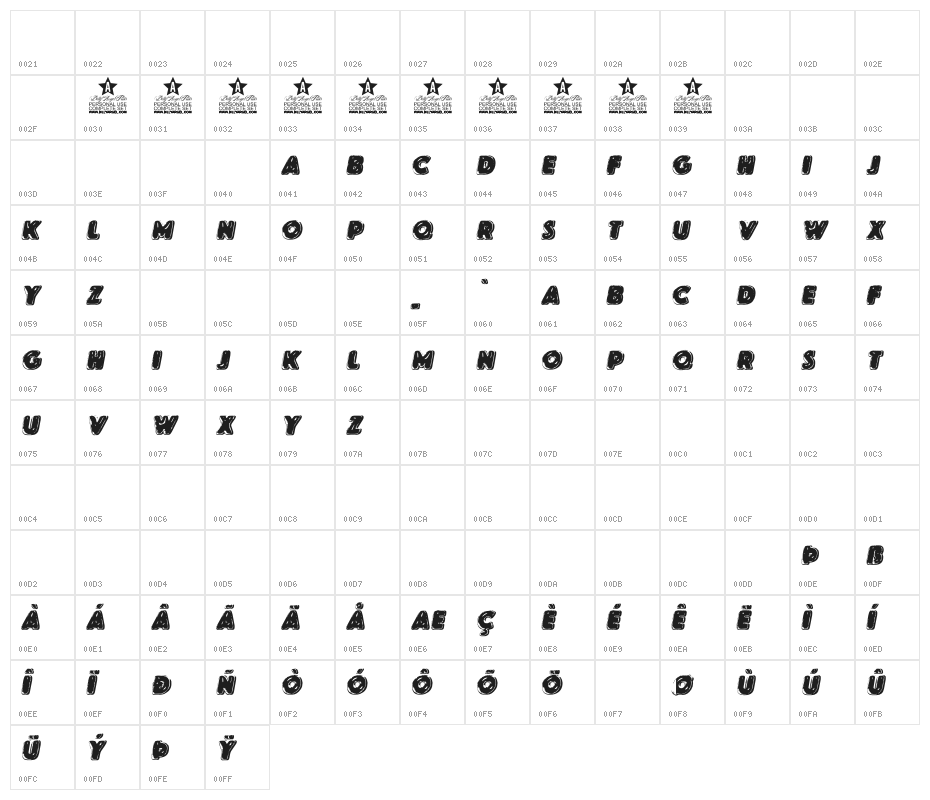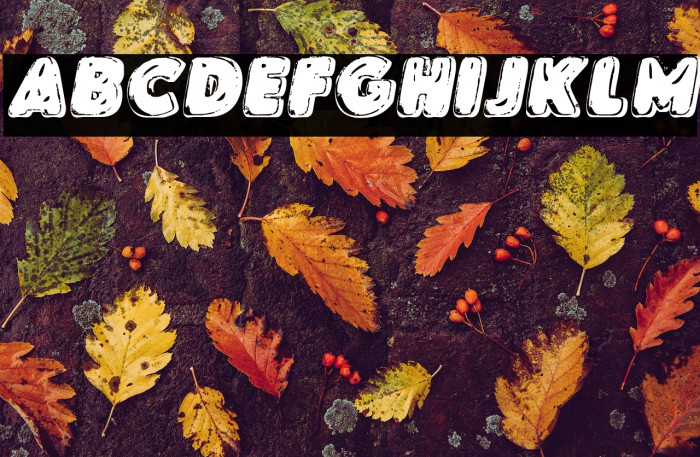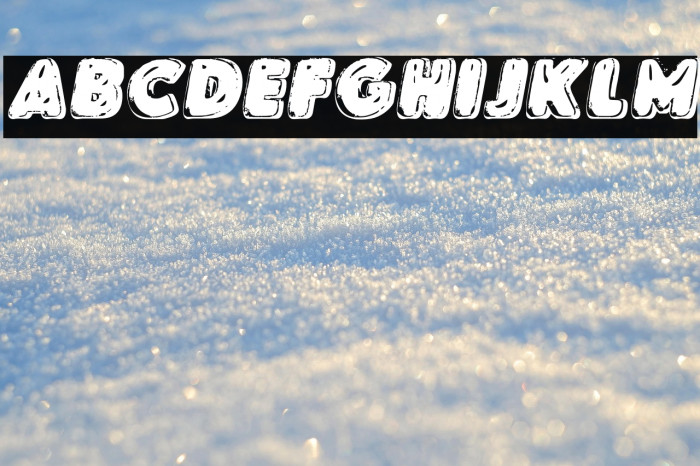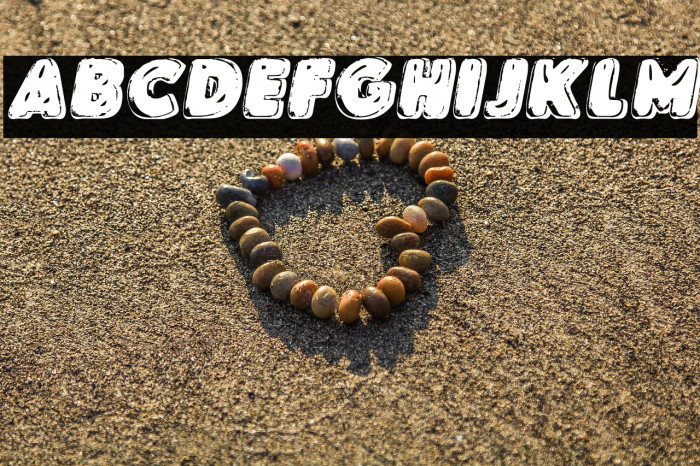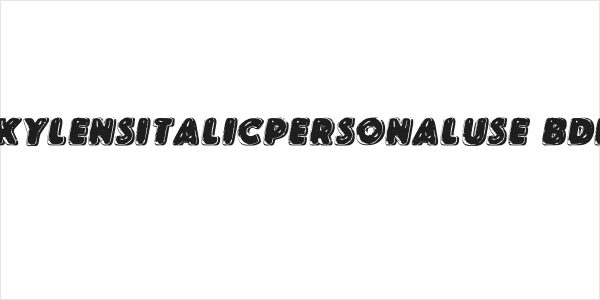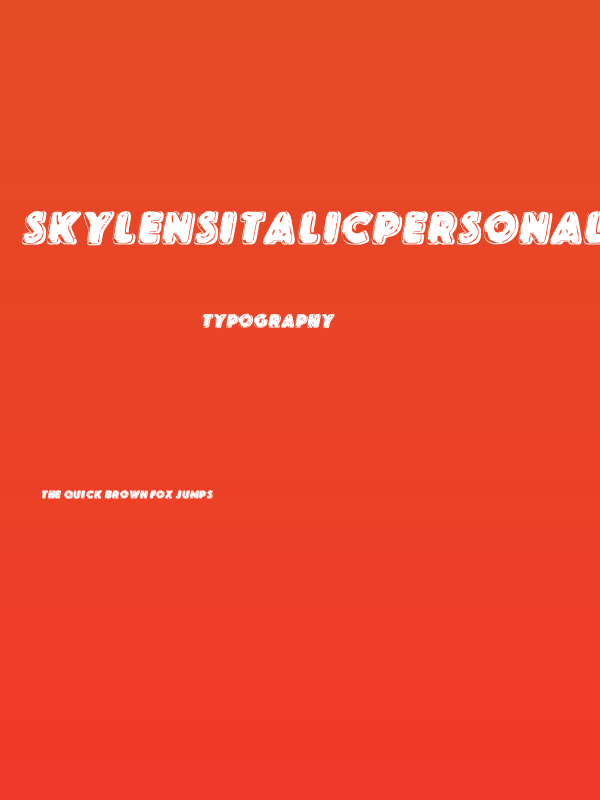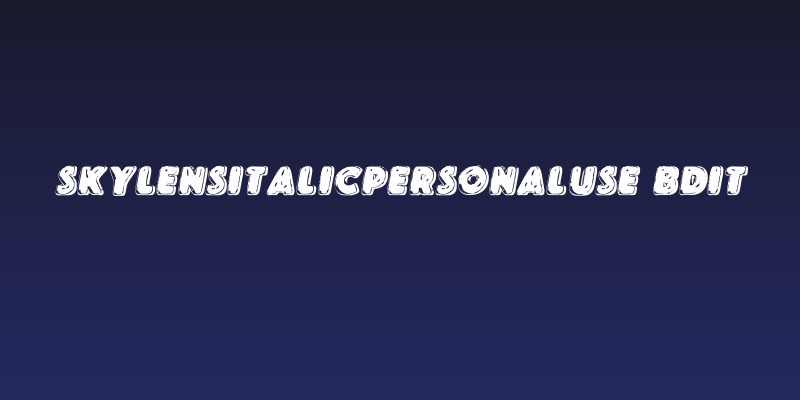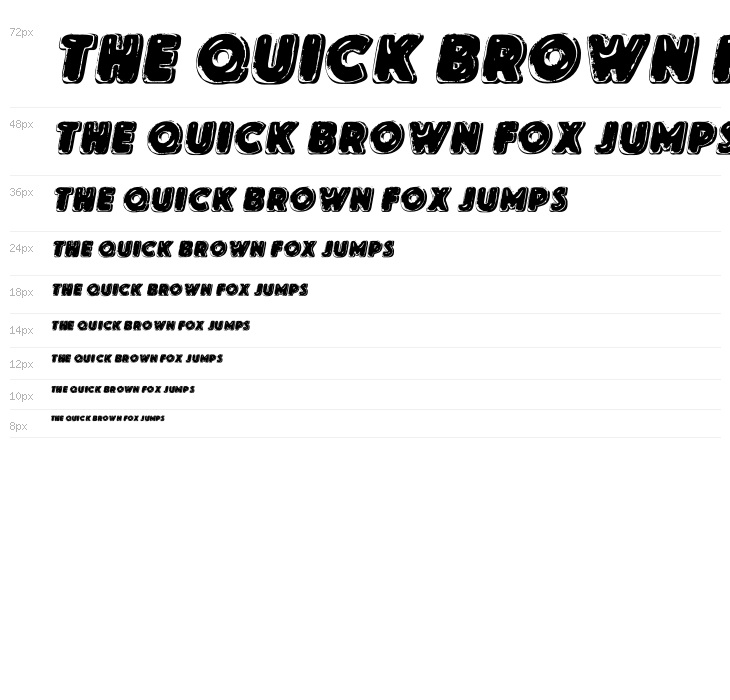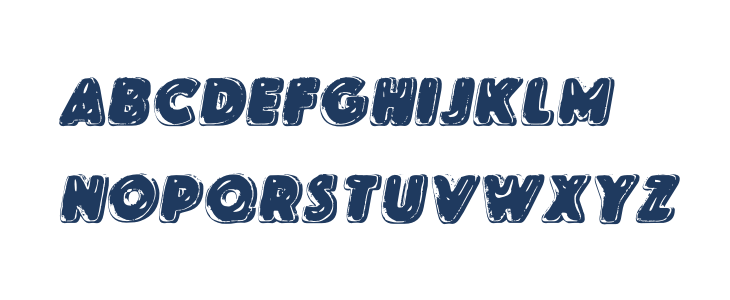
SKYLENSITALICPERSONALUSE-BdIt Font
SKYLENSITALICPERSONALUSE-BdIt Description
This font features bold, rounded characters with a distressed, textured appearance. The letters are thick and convey a sense of playfulness and creativity. The font's boldness is complemented by a slightly italicized slant, adding a dynamic feel to the text. The texture within each character gives it a hand-drawn, artistic quality, making it stand out in any design. The uppercase letters are uniform in height, and the overall style is consistent throughout the alphabet. This font is ideal for projects that require a bold statement or a creative touch.
| Proposed Projects | Ideal for posters, logos, headlines, and creative branding projects. |